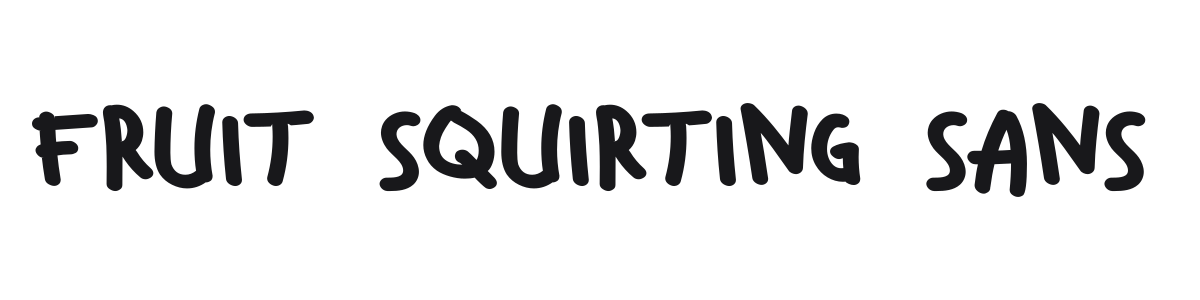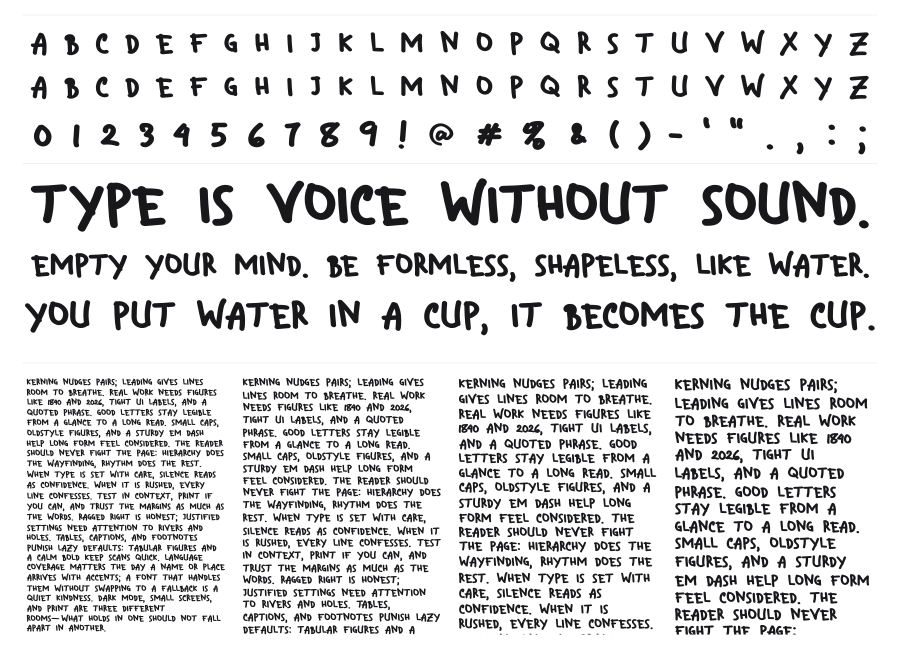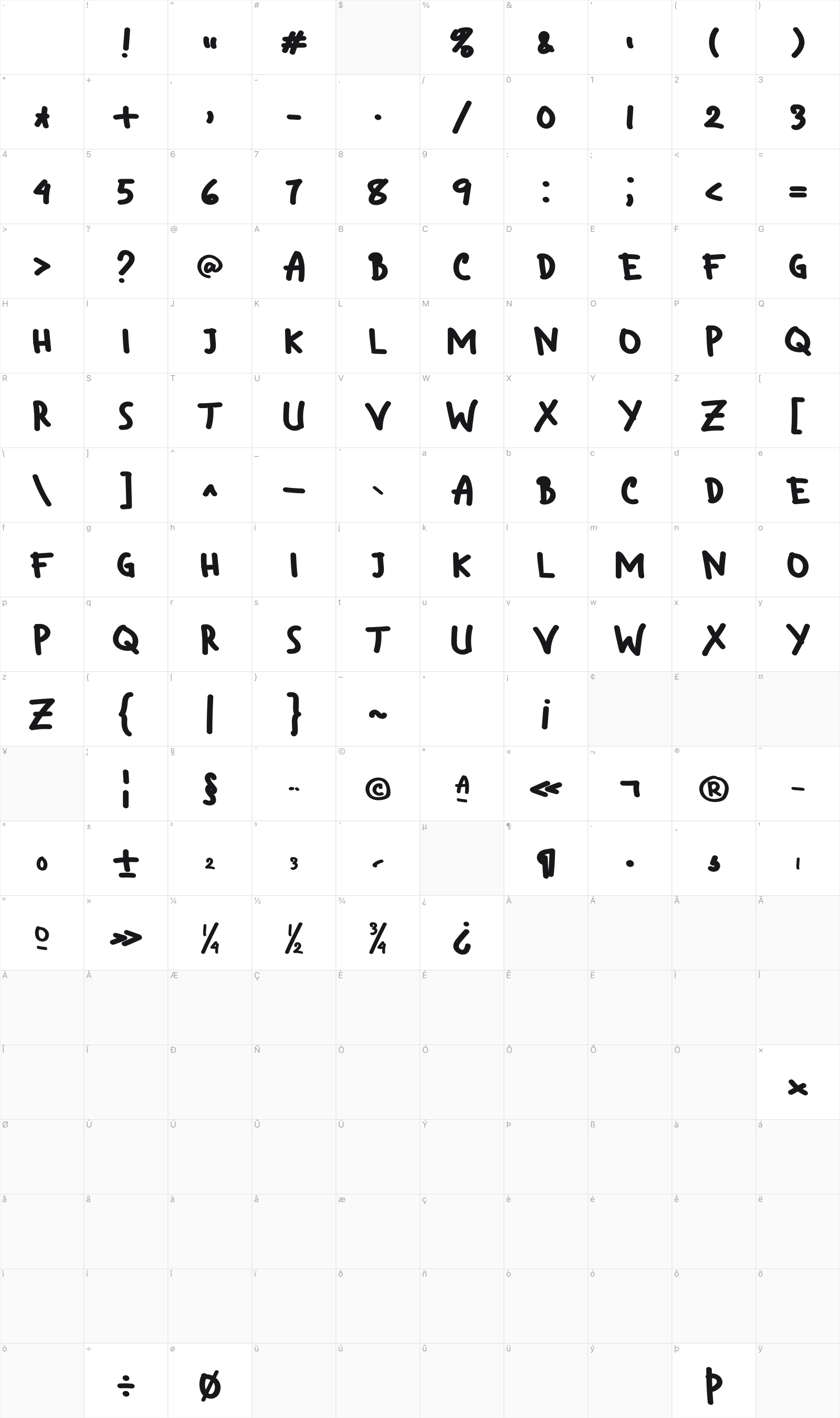
Fruit Squirting Sans
Fruit Squirting Sans is a bold, rounded hand-drawn display font with chunky, irregular characters and a lively comic energy. Each letter has a slightly wobbly, organic outline that feels like it was drawn with a thick marker in a hurry. It suits food packaging, kids' content, and any project that needs to feel spontaneous and approachable.